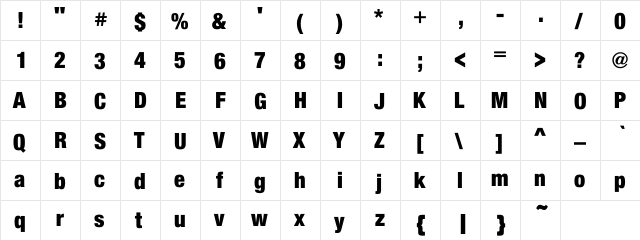
Addington bc Regular
Design Context for Addington bc Typeface
Addington bc takes a measured approach to typography — its balanced proportions and neutral character make it a reliable workhorse for both digital and print work.